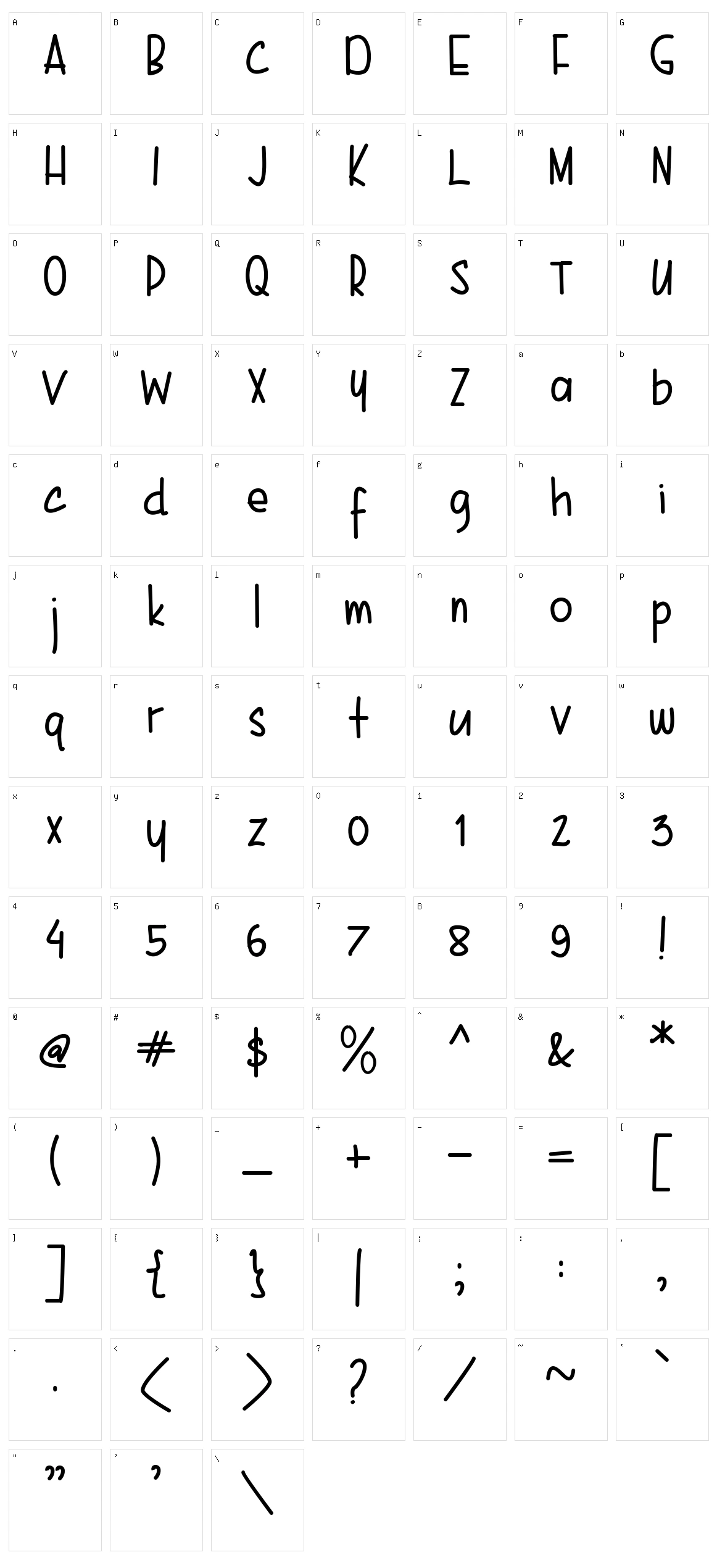
The free font Karenina Handwriting is carefully designed by Kurnia Setyadi, showcasing a thoughtful balance of creativity and usability and falls under the Script font style. When you download the ZIP file, it contains only 49.05 KB of font files, making it lightweight and quick to download. Please review the license details below to understand permitted usage and distribution rights. If license information is not available, we recommend using this font for personal projects only or contacting the author directly for commercial usage permissions.